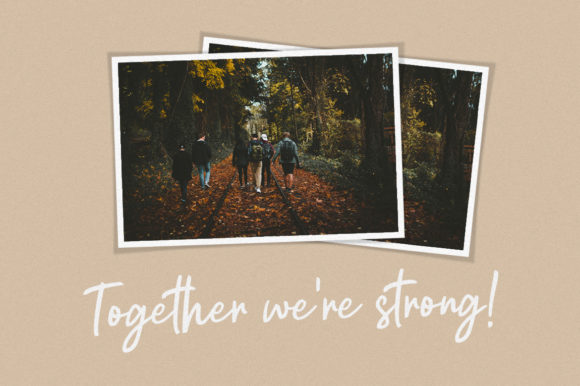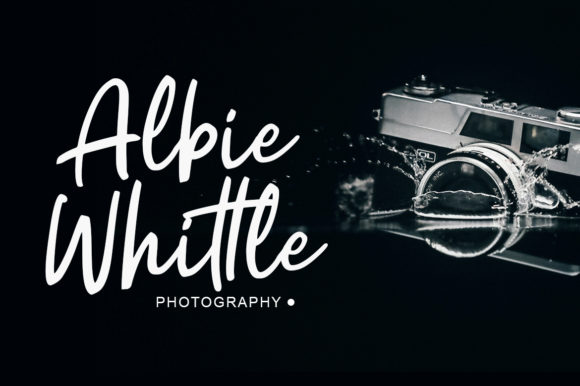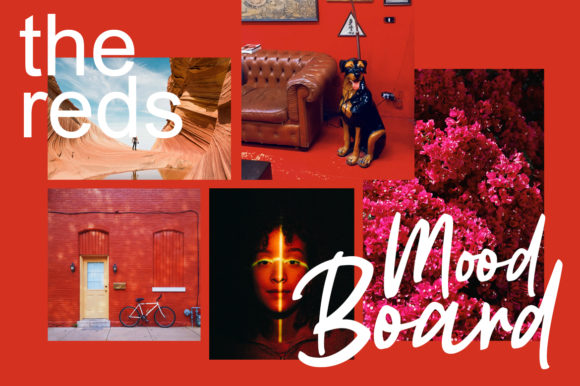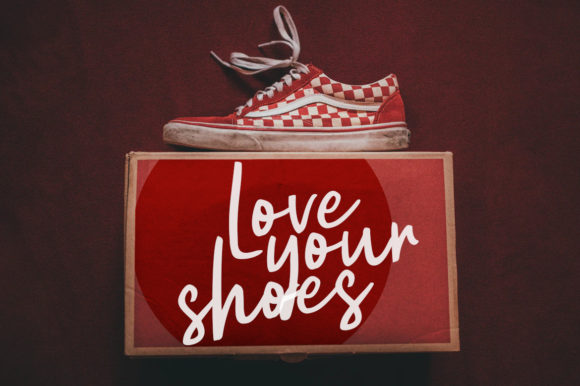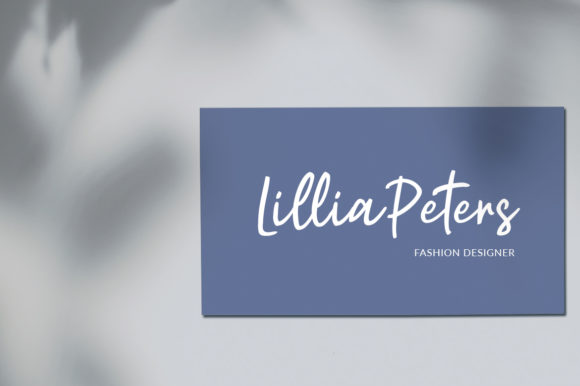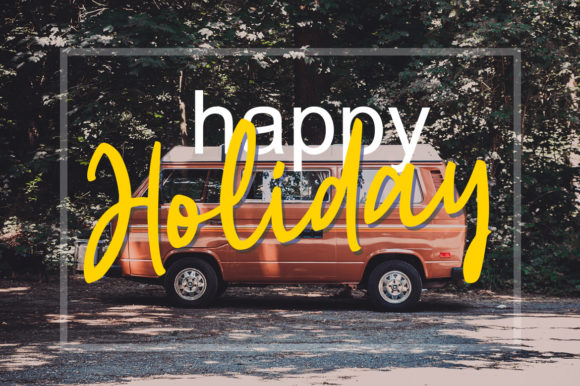
Astrea Font: The Cute and Casual Handwritten Font for Creative Projects
Are you a designer, crafter, or DIY enthusiast looking for a font that can add a personal touch to your creative projects? Look no further than Astrea Font, a cute and casual handwritten font with an incredibly friendly feel. In this article, we’ll explore the features and benefits of Astrea Font, and show you how it can turn any creative idea into a true piece of art.
What is Astrea Font?
Astrea Font is a handwritten font designed to bring a sense of warmth and approachability to your creative projects. Its casual and friendly feel makes it perfect for a wide range of applications, from social media graphics and Instagram posts to calligraphy scripts and DIY projects.
Key Features of Astrea Font
- Cute and Casual Design: Astrea Font features a playful and informal design that’s perfect for creative projects that require a personal touch.
- Handwritten Style: The font’s handwritten style gives it a unique and authentic feel that’s sure to capture the attention of your audience.
- Friendly Feel: Astrea Font is designed to be friendly and approachable, making it perfect for projects that require a warm and inviting tone.
- Versatile: Astrea Font can be used for a wide range of creative projects, from social media graphics and Instagram posts to calligraphy scripts and DIY projects.
Uses of Astrea Font
Astrea Font is a versatile font that can be used for a variety of creative projects. Here are some ideas to get you started:
- Instagram Graphics: Use Astrea Font to create eye-catching Instagram graphics that showcase your personality and style.
- Calligraphy Scripts: Astrea Font is perfect for calligraphy scripts, adding a personal touch to your DIY projects and crafts.
- DIY Projects: Use Astrea Font to add a personal touch to your DIY projects, such as handmade cards, gift tags, and more.
- Social Media Graphics: Astrea Font is perfect for creating social media graphics that require a friendly and approachable tone.
Benefits of Using Astrea Font
Using Astrea Font in your creative projects offers a range of benefits, including:
- Unique and Authentic Look: Astrea Font’s handwritten style gives your projects a unique and authentic look that’s sure to capture the attention of your audience.
- Easy to Read: The font’s clear and legible design makes it easy to read, even at small sizes.
- Time-Saving: Astrea Font is a pre-designed font that can save you time and effort in your creative projects.
- Customizable: Astrea Font can be customized to fit your project’s specific needs, including adjusting the font size, color, and style.
Tips for Using Astrea Font
Here are some tips for using Astrea Font in your creative projects:
- Experiment with Different Sizes: Astrea Font looks great at a range of sizes, from small to large. Experiment with different sizes to find the one that works best for your project.
- Play with Colors: Astrea Font can be used with a range of colors, from bright and bold to soft and pastel. Experiment with different colors to find the one that works best for your project.
- Combine with Other Fonts: Astrea Font can be combined with other fonts to create a unique and interesting look. Experiment with different font combinations to find the one that works best for your project.
Astrea Font is a cute and casual handwritten font with an incredibly friendly feel. Its versatile design makes it perfect for a wide range of creative projects, from social media graphics and Instagram posts to calligraphy scripts and DIY projects. With its unique and authentic look, easy readability, and customizable design, Astrea Font is a great choice for designers, crafters, and DIY enthusiasts looking to add a personal touch to their creative projects.